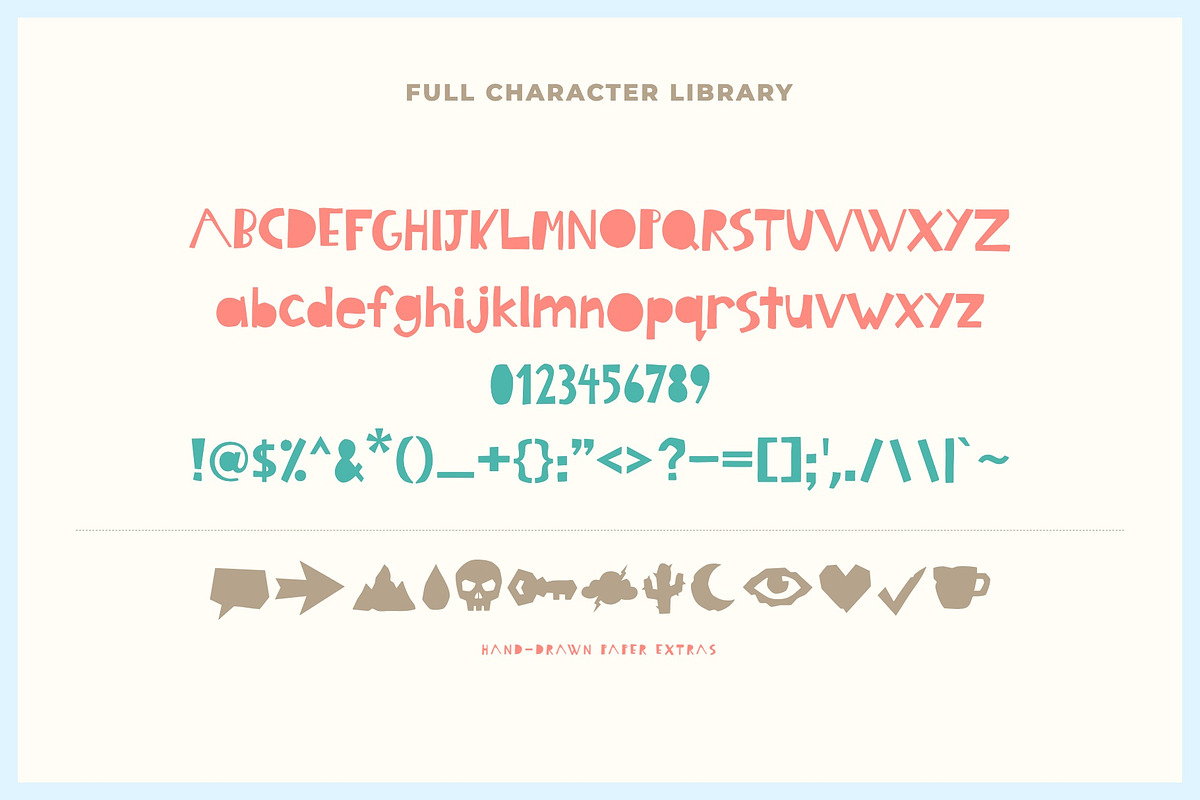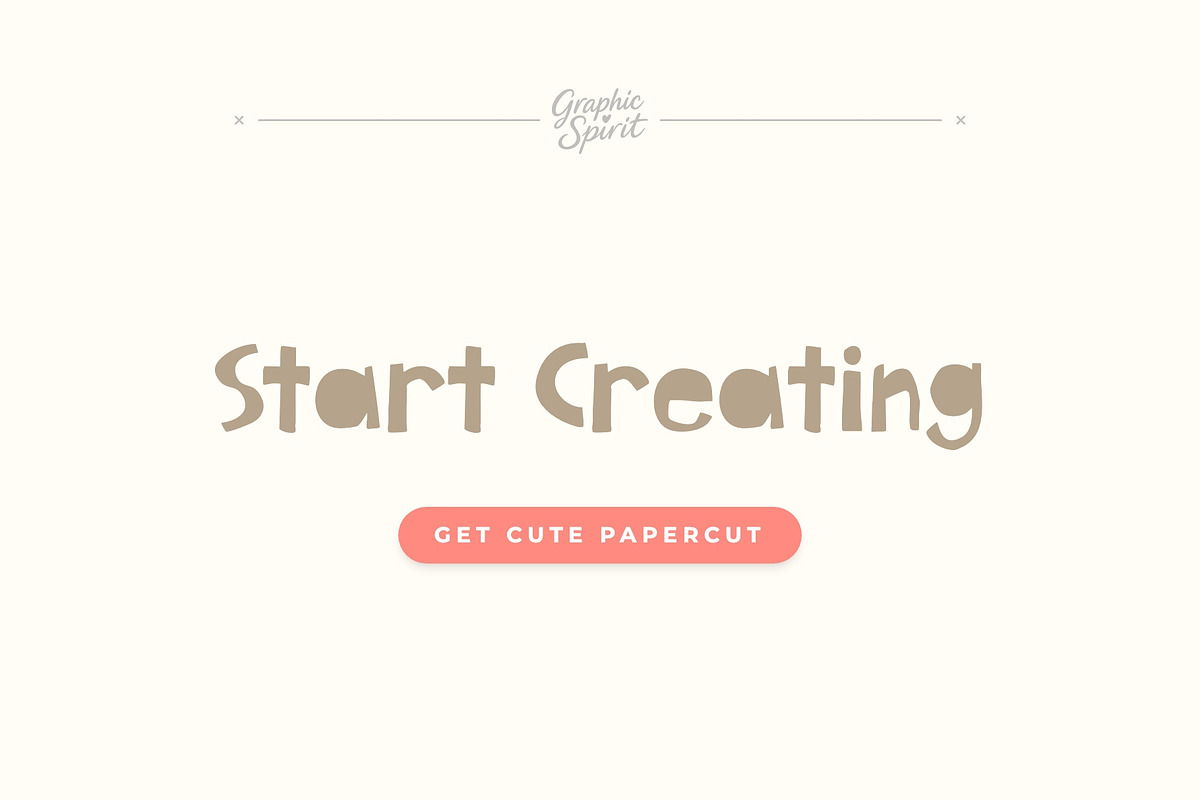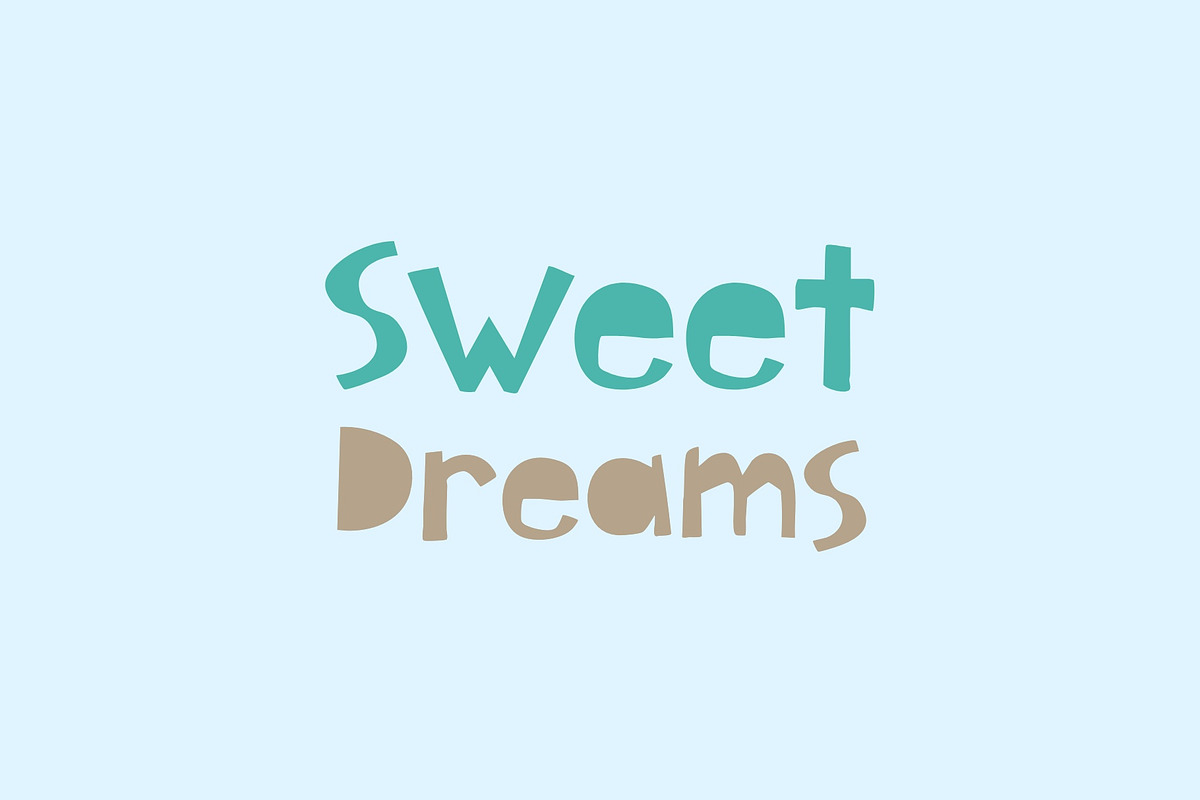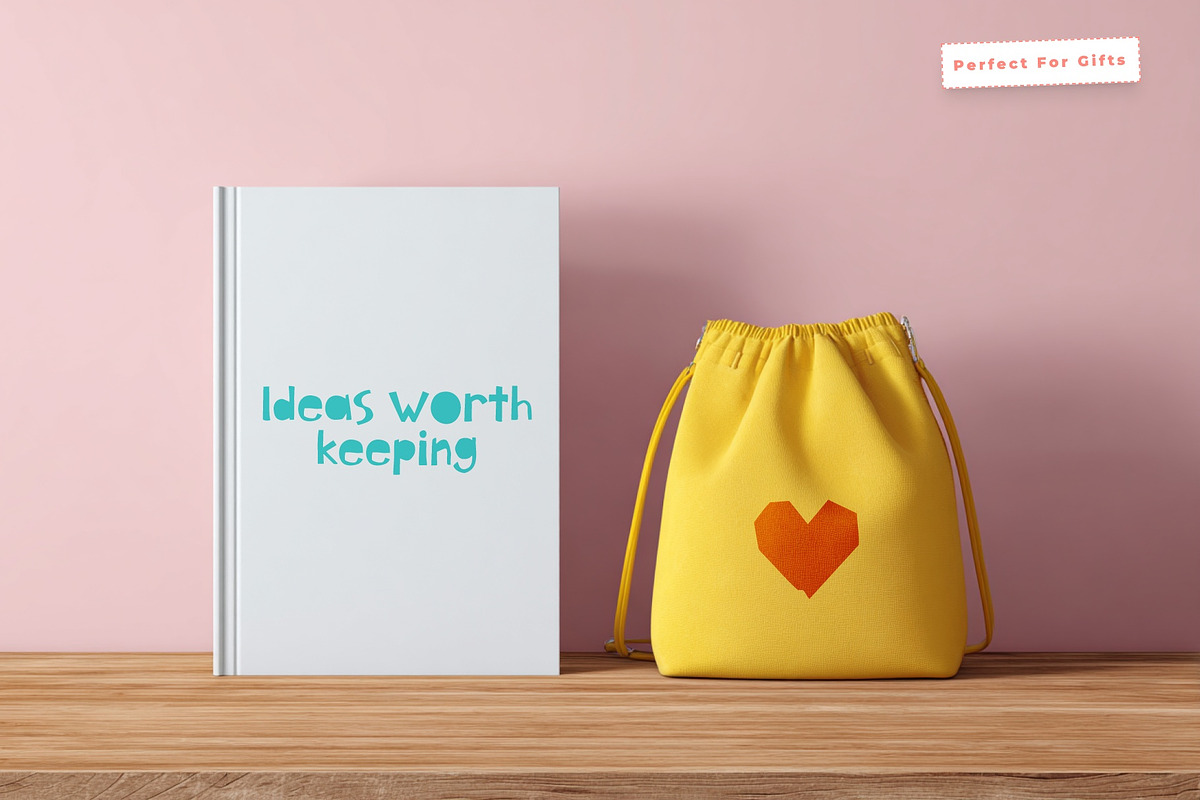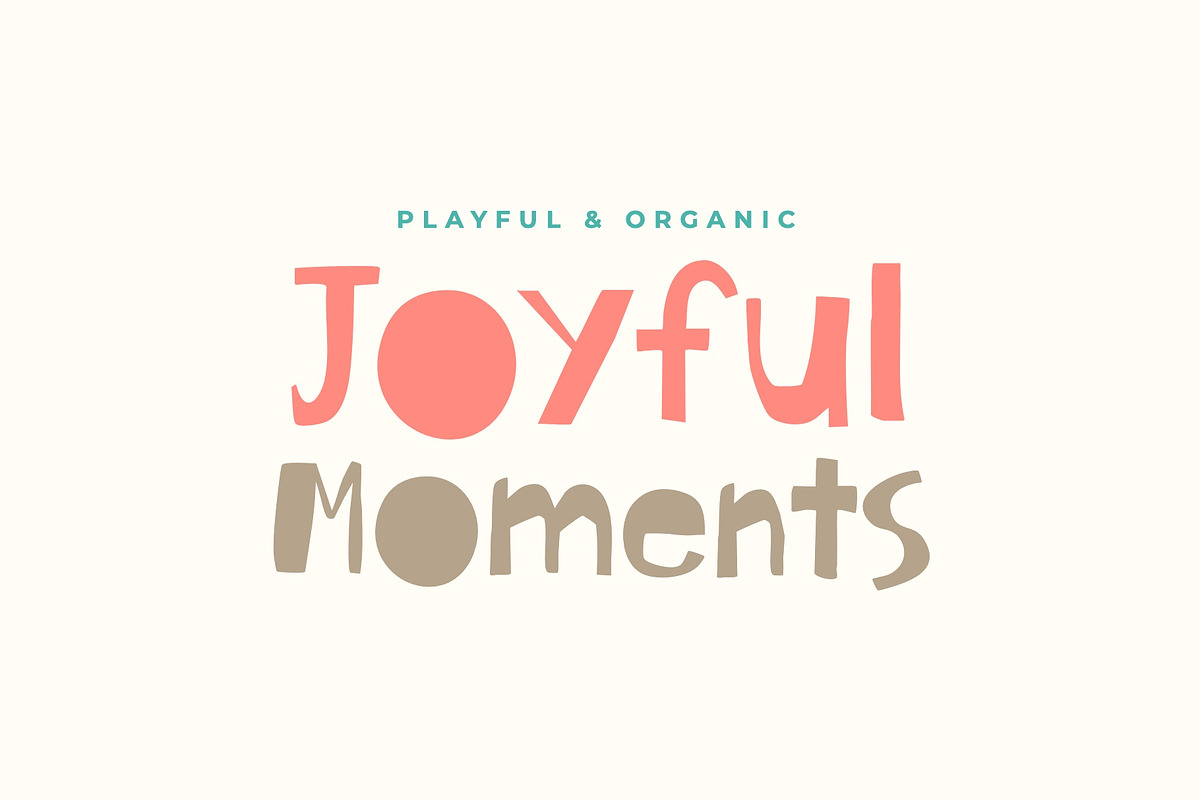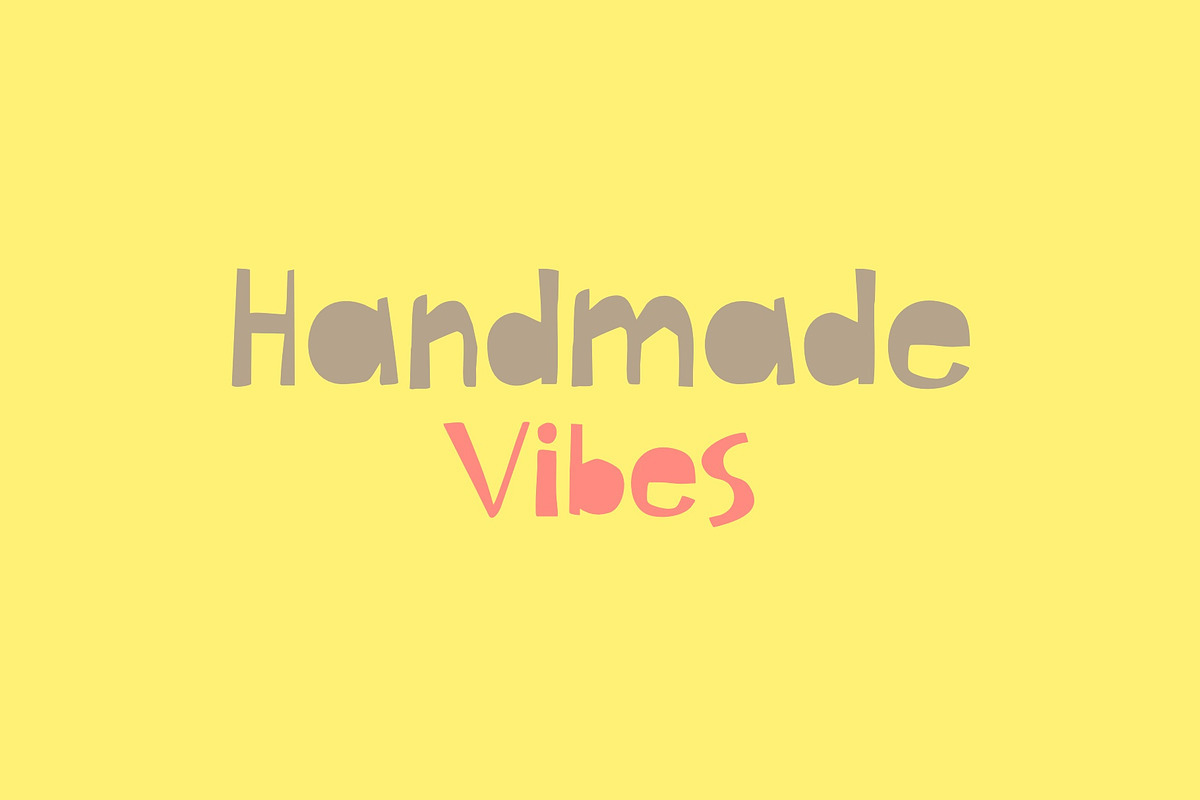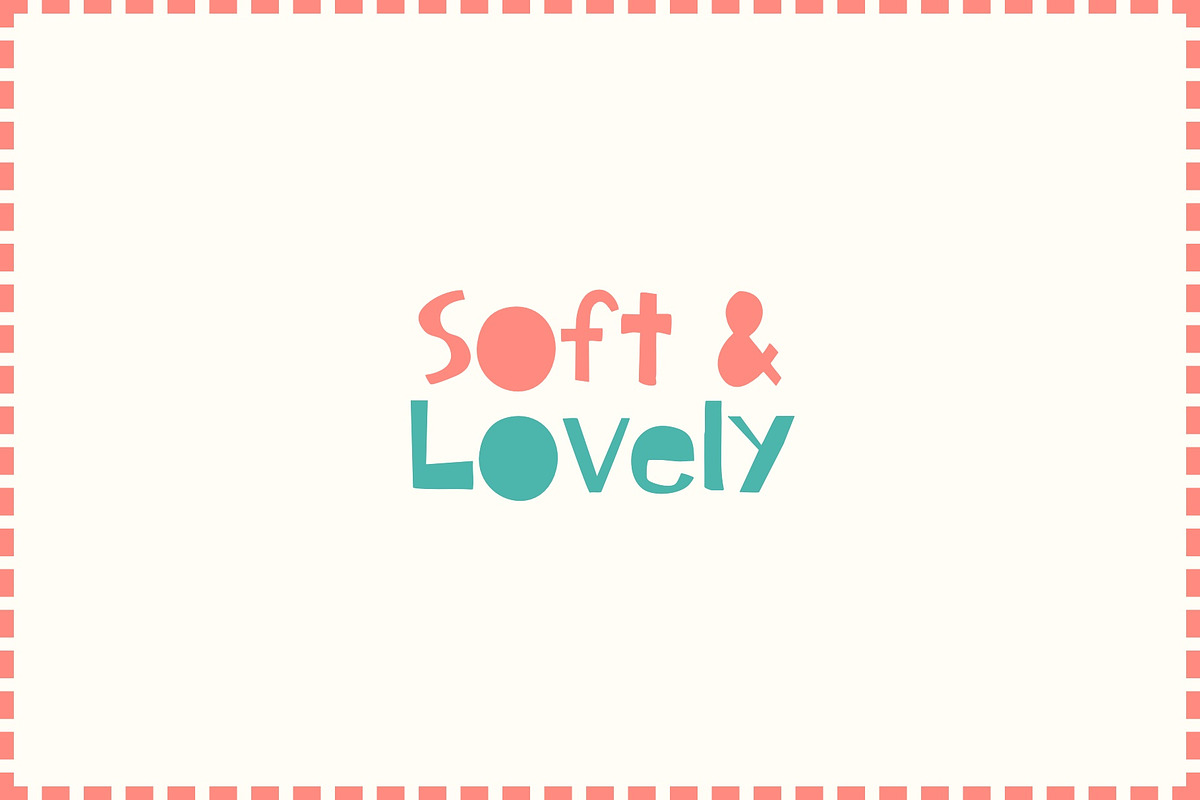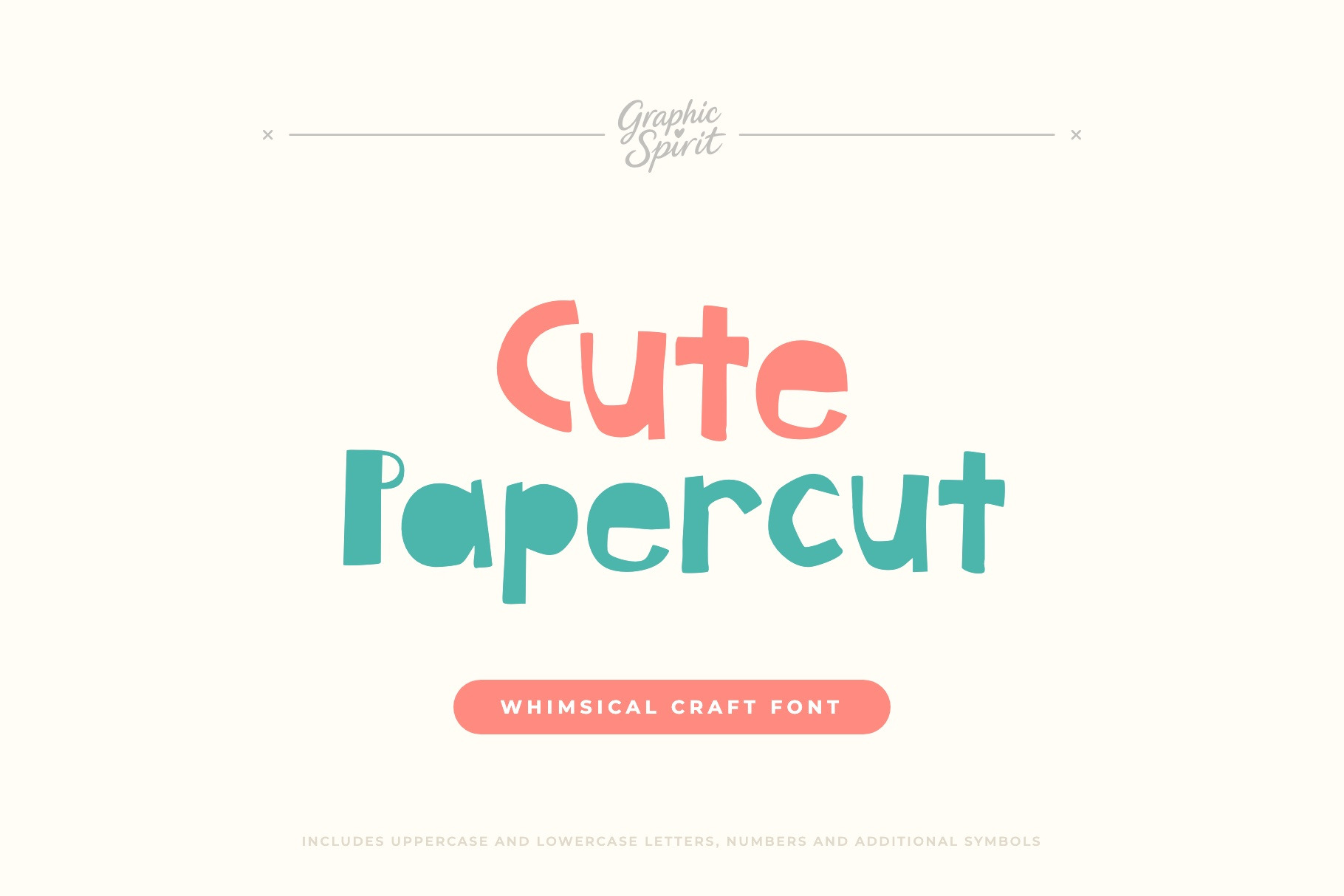
Cute Papercut Decorative Font
Cute Papercut is a playful and craft-inspired font that brings a handmade storytelling vibe to modern design projects. As a digital download, it offers charming paper-cut edges and a friendly aesthetic, ideal for designers seeking a joyful and creative look for their kids' branding or DIY-style work. The typeface's soft construction and organic lines ensure a charming presence in any creative layout.
Designed for joy and impact, Cute Papercut is perfect for everything from playful logos to charming social media graphics. Its state-of-the-art design includes paper-cut geometric elements that allow you to customize your typography with a truly bespoke feel. Elevate your creative toolkit with this versatile font that balances playful charm with the power of craft-style storytelling for impactful results.